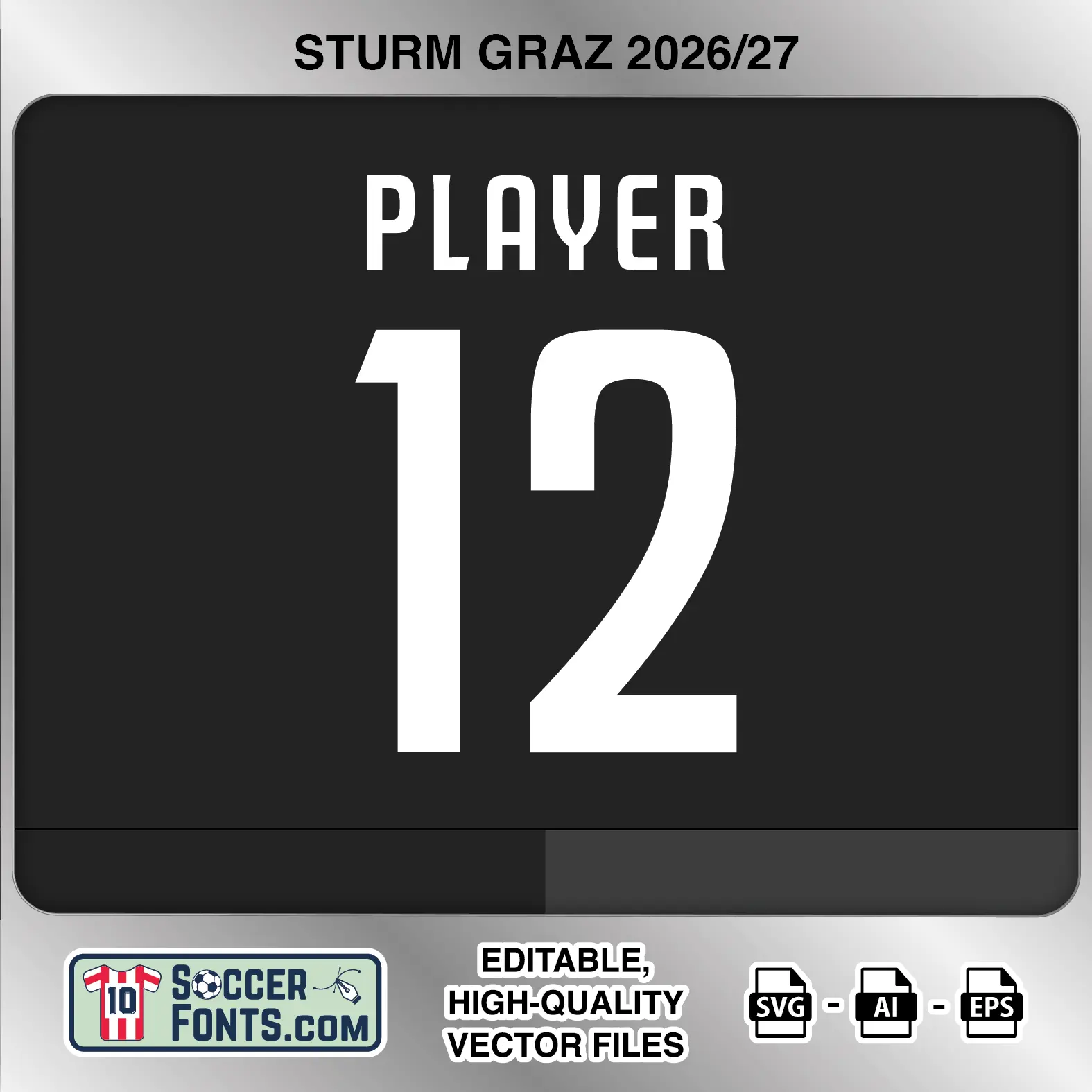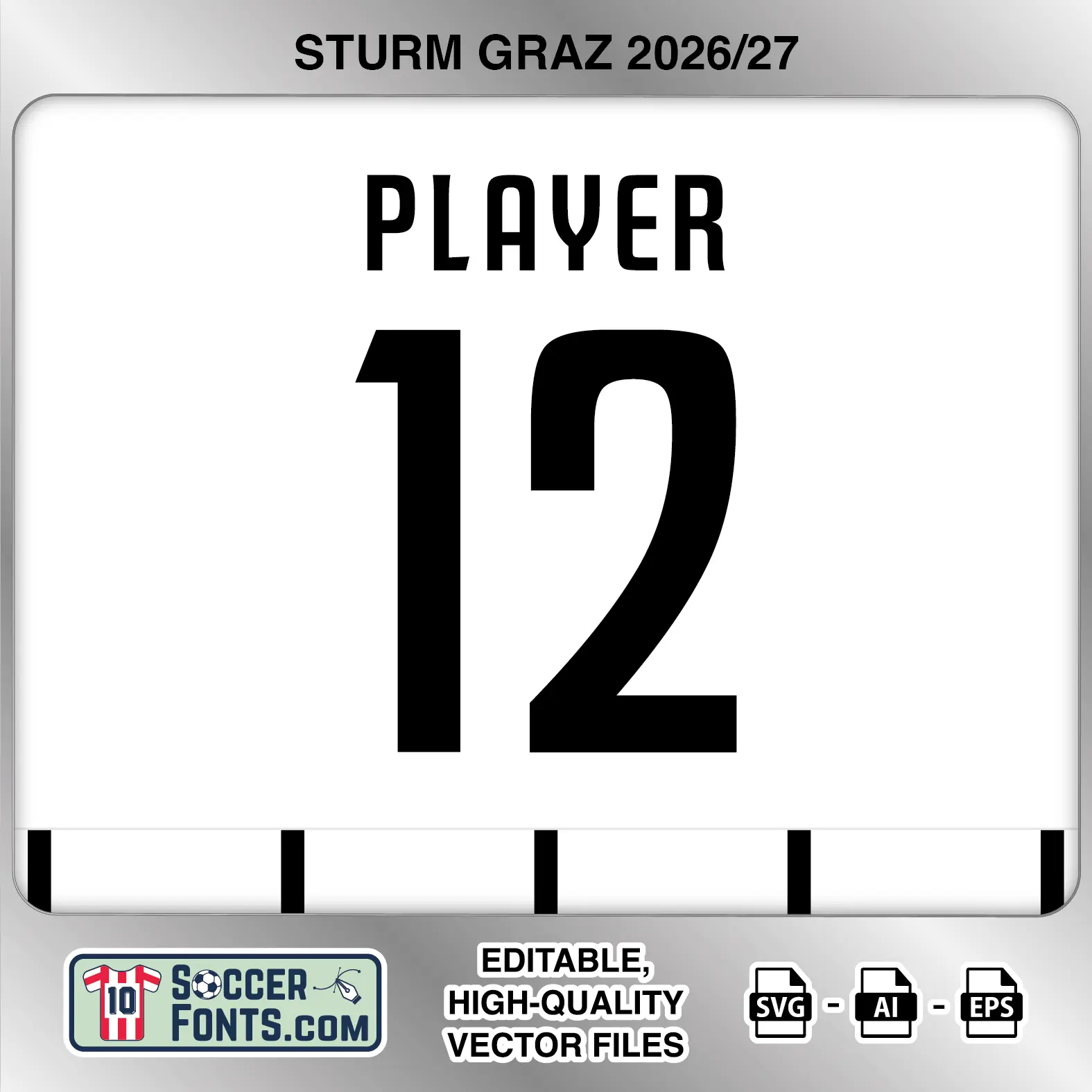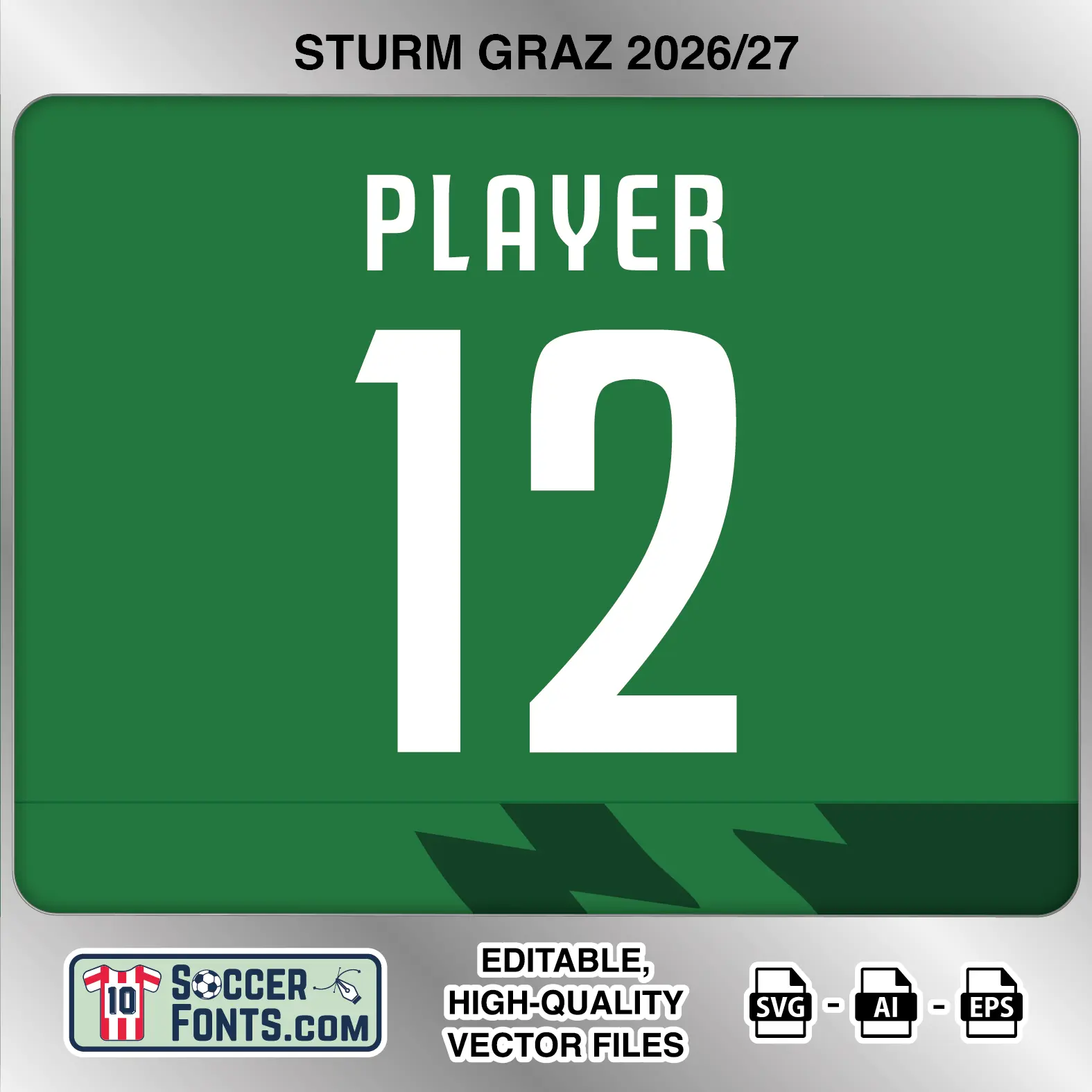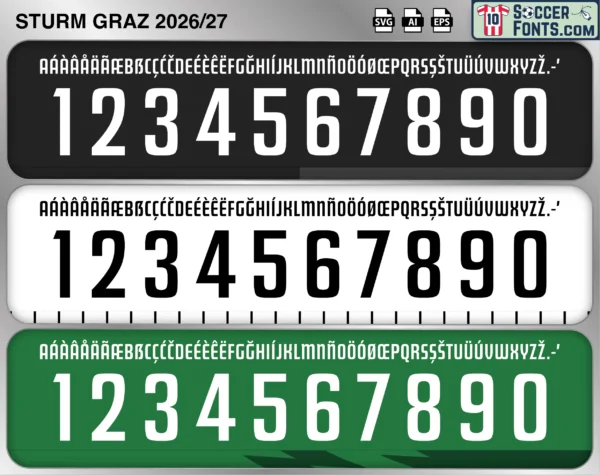
About Sturm Graz 2026-27 Font
Download Sturm Graz 2026-27 font, an editable soccer jersey lettering design in vector format inspired by the Sturm Graz home, away and third kit styles used during the 2026-27 football season. This football font artwork is prepared for football shirt recreations, custom jersey projects, football kit mockups and sports graphic design workflows.
Visual Identity of the Font Design :
The Sturm Graz 2026-27 lettering uses a tall, condensed sans-serif structure across all three kit treatments. The uppercase alphabet is narrow with compact spacing and several subtly shaped terminals, while the numbers are considerably larger and heavier. The numerals combine long straight vertical strokes with rounded transitions: the 1 has a broad angled upper section, the 2 features a rounded upper curve flowing into a diagonal stroke and flat base, and the 3 uses two broad curved sections. The 4 has an open triangular construction, while 6, 8, 9 and 0 use narrow rounded internal spaces.
The home version uses white player names and numbers against the club’s black shirt treatment. The away version reverses the contrast with black lettering and numbers on a white background. The third version returns to white lettering and numbers, this time displayed against a green shirt treatment with darker graphic elements visible near the lower section. All three versions use clean solid fills without outlines, shadows or embedded club crests, and the character set includes an extensive selection of accented uppercase letters for international player names.
Context of 2026-27 Season for Sturm Graz :
Sturm Graz entered the 2026-27 campaign with another season of Austrian Bundesliga football and European competition ahead. The Sturm Graz 2026-27 Font belongs to a period in which the Graz club continues to compete among Austria’s leading sides while carrying its black-and-white identity into a new collection of home, away and third shirts.
Domestic competition remains central to the campaign, with matches against traditional Austrian opponents such as Red Bull Salzburg, Rapid Wien and Austria Wien forming important parts of the schedule. European fixtures add another dimension to the season and provide an international stage for Sturm’s 2026-27 kit collection alongside its appearances in the Bundesliga and Austrian Cup.
For football shirt collectors and kit design projects, the Sturm Graz 2026-27 Font brings the home, away and third lettering treatments together in one package. The consistent condensed typography connects all three versions, while the black, white and green shirt applications give the Sturm Graz 2026-27 Font distinct options for recreating the club’s 2026-27 jersey lettering.
Sturm Graz 2026-27 football shirt font showing alphabet letters and jersey numbers